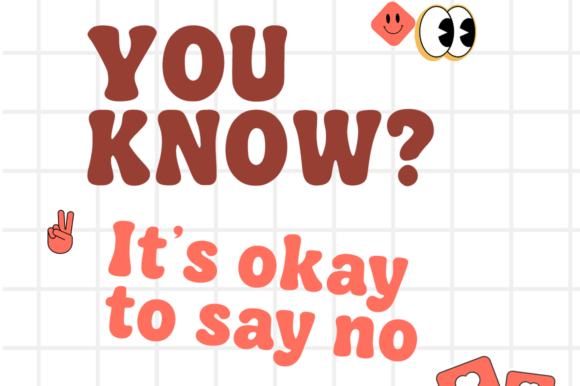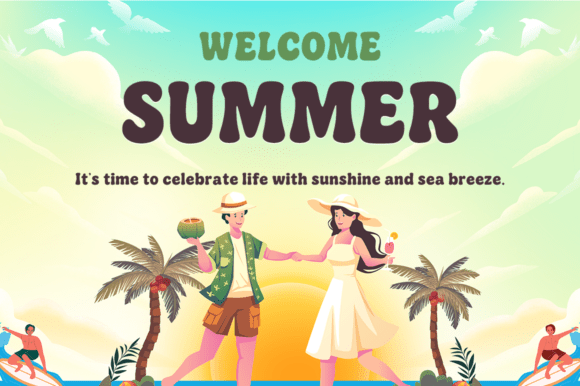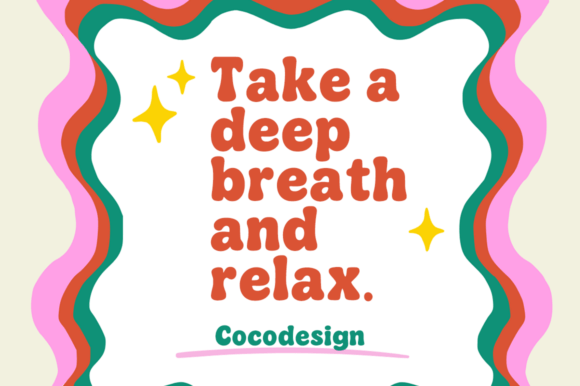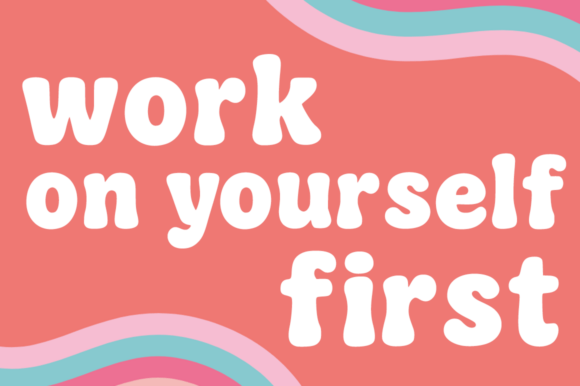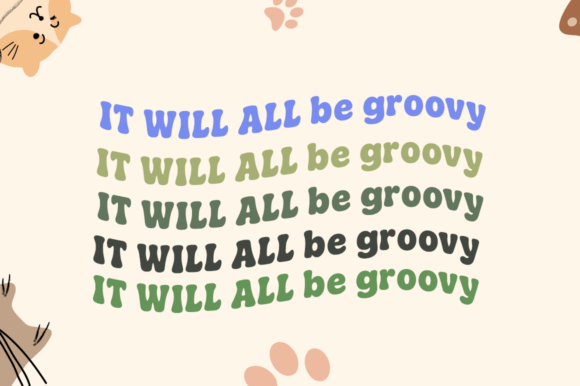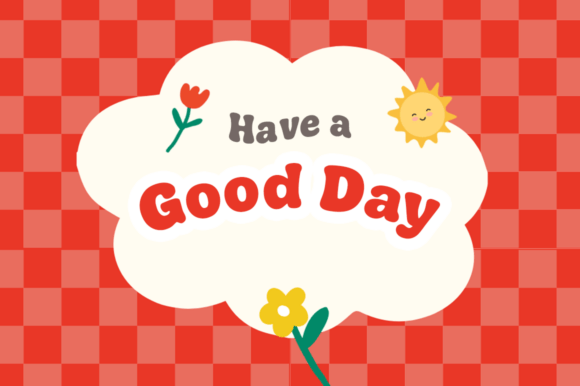
Introducing Gemoya Font: The Ultimate Retro Display Font for Creative Ventures
Are you tired of using the same old fonts in your creative projects? Look no further than Gemoya Font, a vibrant and playful retro display font that’s sure to add a splash of fun and distinction to any design. With its unique blend of boldness and light-hearted charm, Gemoya is the perfect choice for designers and crafters looking to add a touch of whimsy and vivacity to their work.
A Nostalgic yet Modern Twist
Gemoya Font is crafted with a curvaceous structure that echoes the nostalgia of bygone times. Its lively and bouncy retro flavor is sure to transport you back to a era of vintage elegance, while its contemporary spin makes it perfect for modern designs. Whether you’re working on posters, packaging, labels, invitations, or social media content, Gemoya’s exuberant persona is sure to command attention and leave a lasting impression.
What Makes Gemoya Font So Special?
So, what sets Gemoya Font apart from other fonts on the market? Here are just a few of its standout features:
- Unique blend of boldness and light-hearted charm: Gemoya Font combines the perfect amount of boldness and playfulness to make it suitable for a wide range of creative ventures.
- Curvaceous structure: The font’s curvaceous structure gives it a nostalgic feel that’s reminiscent of vintage designs.
- Lively and bouncy retro flavor: Gemoya Font is infused with a lively and bouncy retro flavor that’s sure to add a splash of fun to any design.
- Contemporary spin on vintage elegance: While Gemoya Font has a nostalgic feel, its contemporary spin makes it perfect for modern designs.
Gemoya Font is perfect for designers and crafters who want to add a touch of personality to their work. Whether you’re working on a commercial project or a personal craft, this font is sure to help you stand out from the crowd. Here are just a few ways you can use Gemoya Font:
- Posters and flyers: Use Gemoya Font to create eye-catching posters and flyers that are sure to grab attention.
- Packaging and labels: Add a touch of personality to your packaging and labels with Gemoya Font.
- Invitations and greeting cards: Use Gemoya Font to create unique and personalized invitations and greeting cards.
- Social media content: Add a splash of fun to your social media content with Gemoya Font.
Tips for Using Gemoya Font
Here are a few tips for getting the most out of Gemoya Font:
- Use it sparingly: While Gemoya Font is perfect for headlines and titles, it’s best to use it sparingly to avoid overwhelming your design.
- Experiment with colors: Gemoya Font looks great in a variety of colors, so don’t be afraid to experiment and find the perfect hue for your design.
- Pair it with other fonts: Gemoya Font pairs well with a variety of other fonts, so feel free to get creative and find the perfect combination for your design.
Gemoya Font is a unique and playful retro display font that’s perfect for designers and crafters looking to add a touch of personality to their work. With its curvaceous structure, lively and bouncy retro flavor, and contemporary spin on vintage elegance, Gemoya Font is sure to command attention and leave a lasting impression. So why not give it a try and see how it can elevate your designs to the next level?
In conclusion, Gemoya Font is a must-have for any designer or crafter looking to add a splash of fun and distinction to their work. Its unique blend of boldness and light-hearted charm, combined with its nostalgic yet modern twist, make it the perfect choice for a wide range of creative ventures. So don’t wait – download Gemoya Font today and start creating!